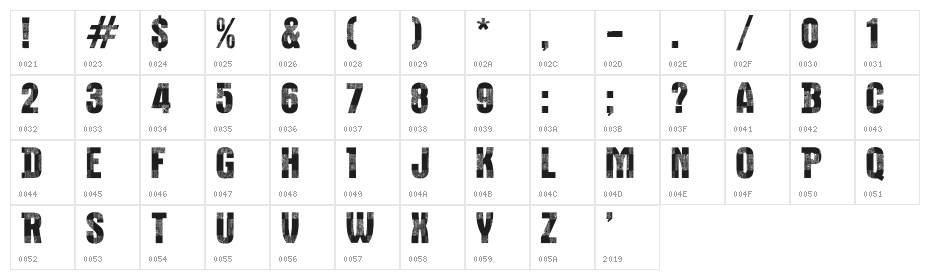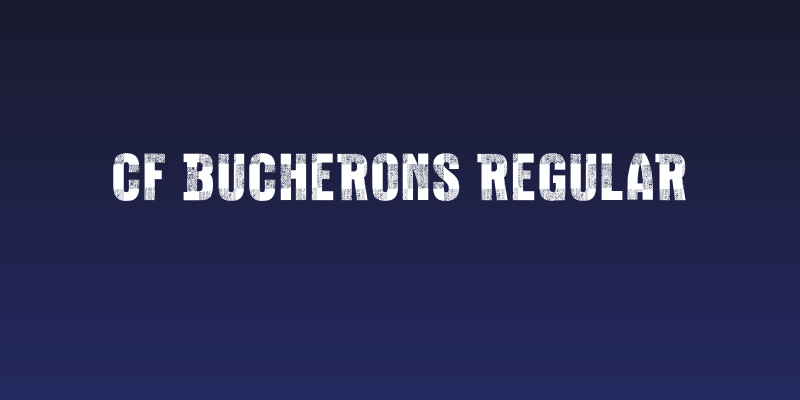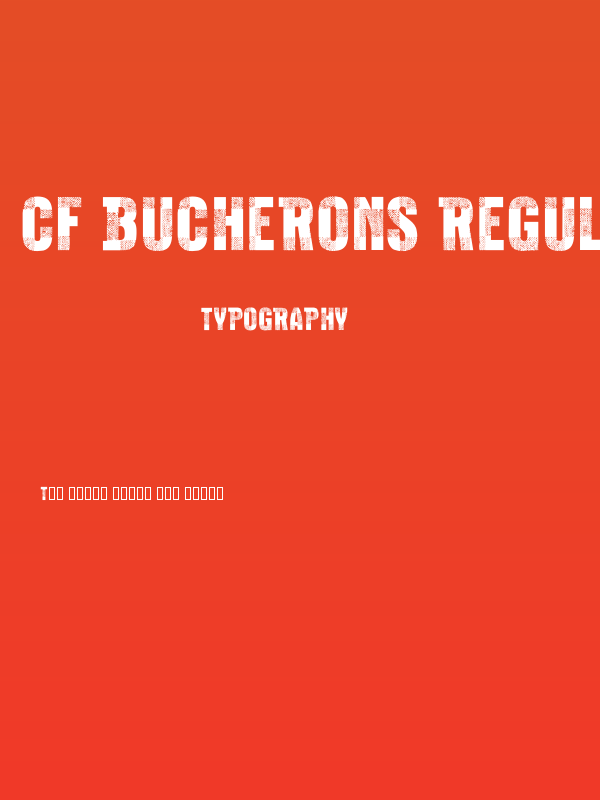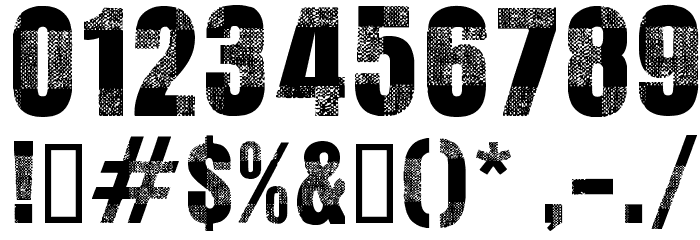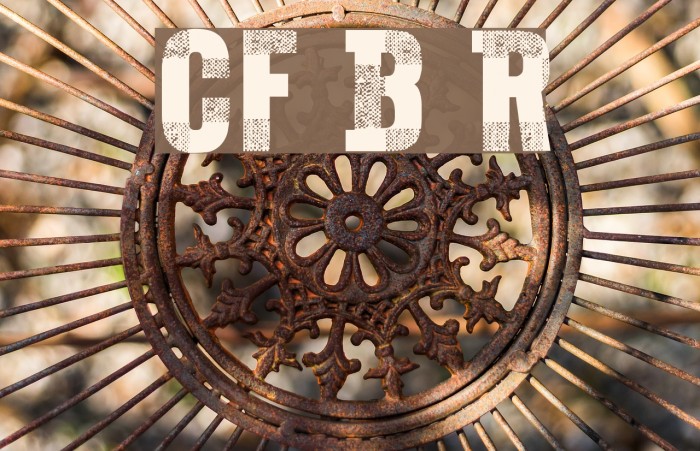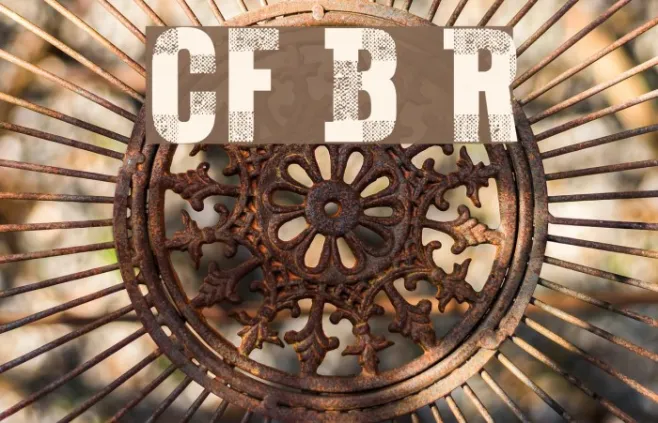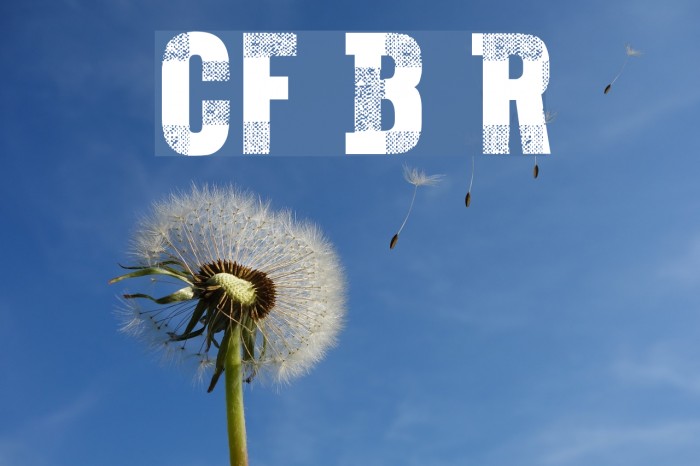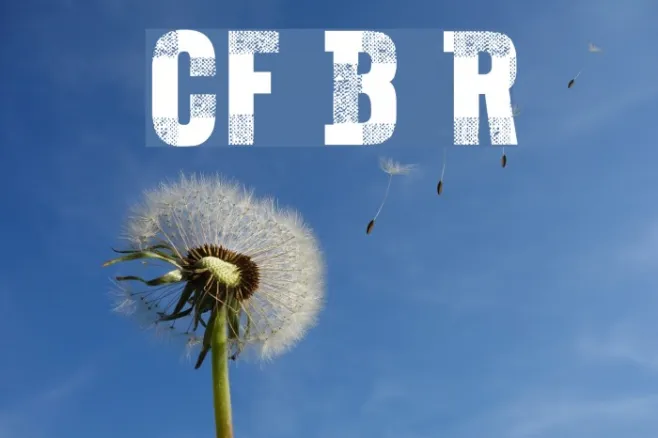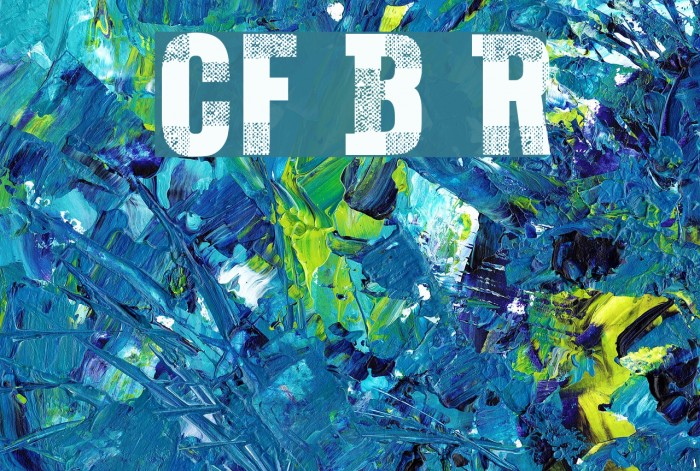
CF Bucherons Regular Font
CF Bucherons Regular Description
This font features a bold, distressed style with a textured appearance that mimics a worn or weathered look. The uppercase letters are prominent and impactful, making them ideal for attention-grabbing designs. The numbers and special characters maintain the same rugged texture, ensuring consistency across all characters. The font's unique style is reminiscent of vintage or industrial themes, with a strong emphasis on boldness and character. Its rough edges and uneven texture give it a handcrafted feel, suitable for projects that require a rustic or gritty aesthetic.
| Proposed Projects | Ideal for posters, logos, branding, and any design needing a rugged, vintage touch. |